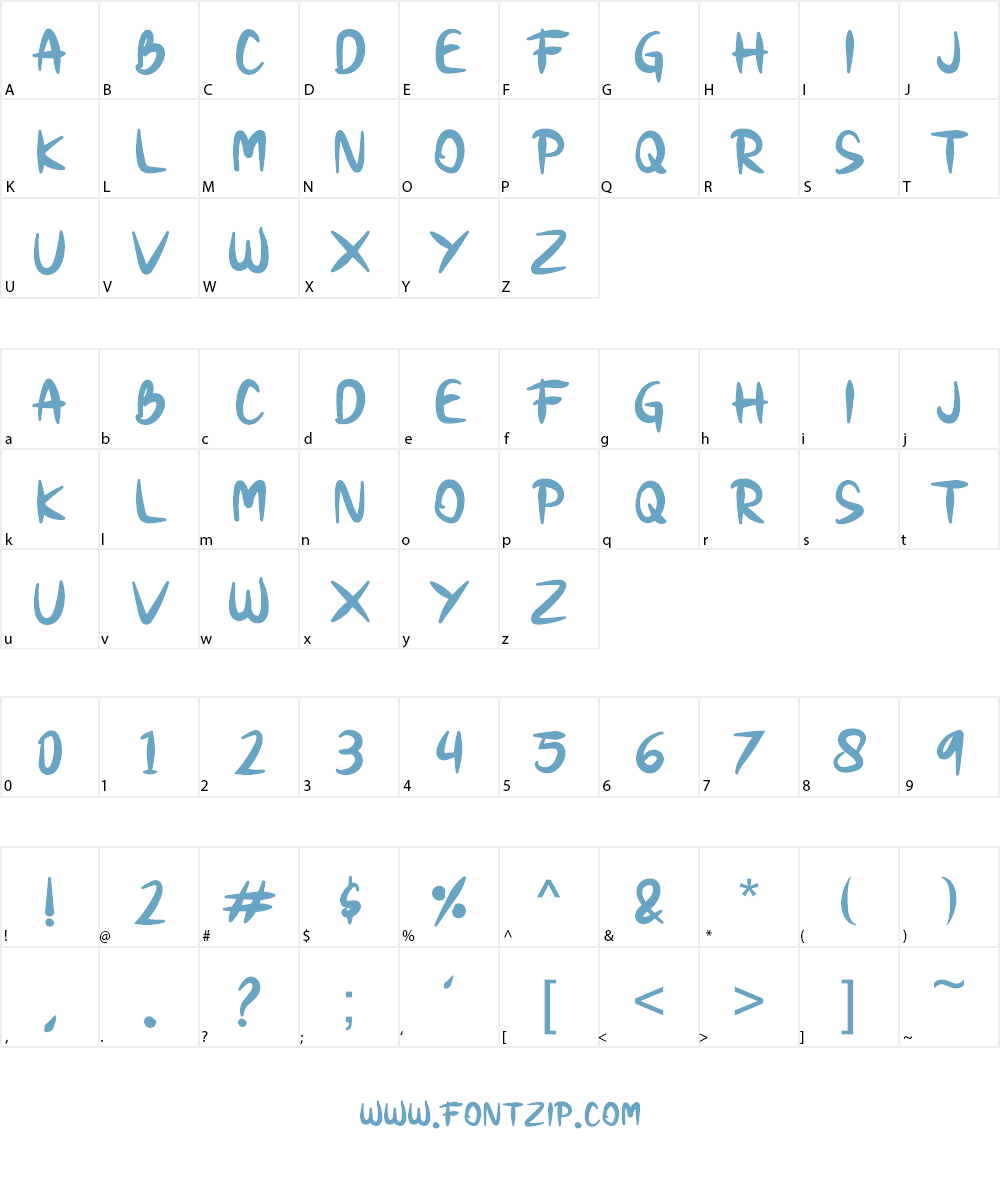
Intoducing : I am a fun display font. my name is SNOBI. I am child-friendly font. I would look perfect on creating designs targeted towards children. I am also suitable for logos, packaging designs, posters, books, etc.